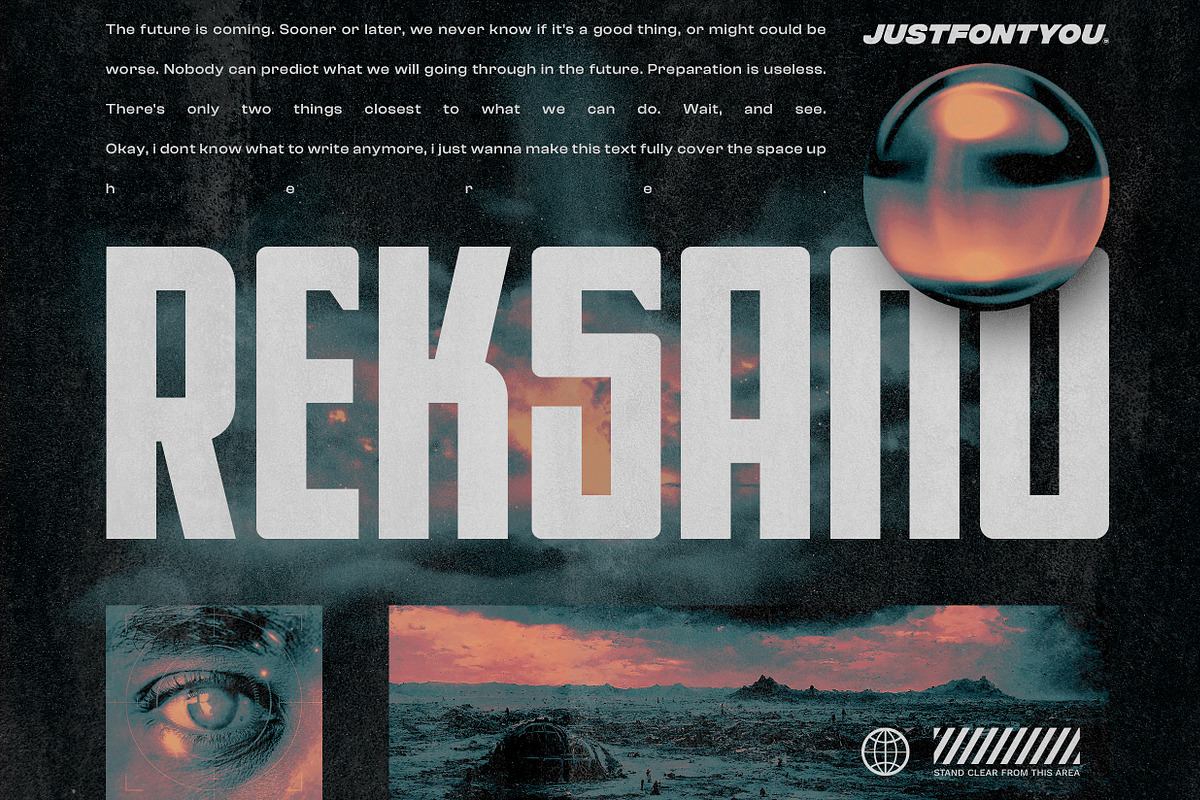
Reksano - Futuristic Display Fonts Free Download
Reksano – Futuristic Display Fonts Free Download is a cutting-edge, modern typeface designed to bring a sleek and innovative edge to your designs. Perfect for tech branding, sci-fi posters, product packaging, and digital interfaces, this font delivers a bold, forward-thinking look that stands out.
With its sharp angles and dynamic letterforms, Reksano – Futuristic Display Fonts Free Download is perfect for designers looking to create high-tech, futuristic aesthetics. Whether you’re designing a sci-fi themed event, a modern tech startup, or digital content that demands attention, Reksano brings both clarity and style to your typography. Try it out in your next project to experience its powerful impact—then upgrade to a commercial license when you're ready to take your work live.